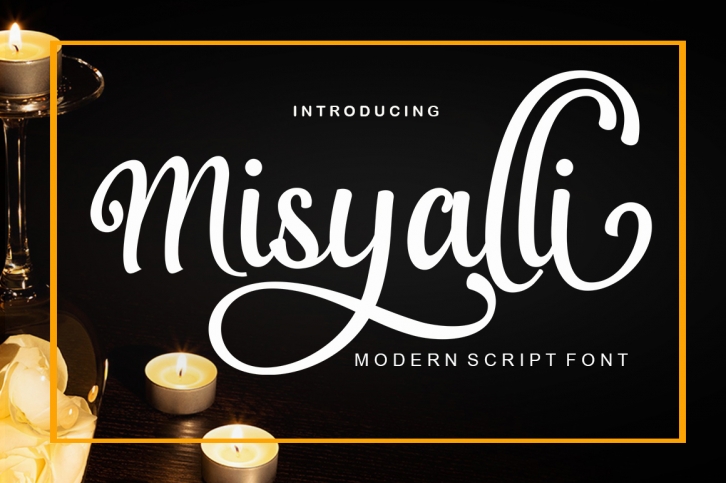
Misyalli is a great font that was designed by donya design. Imagine the amount of combinations you can create using this font! The archive is 3.84 MB and it was released on February 4, 2020. Misyalli looks beautiful on wedding invitations, greeting cards, logos, posters, labels, t-shirt designs, logos, business cards and is perfect for use in ink or watercolor works, fashion, magazines, packaging and food menus, children's books and more!